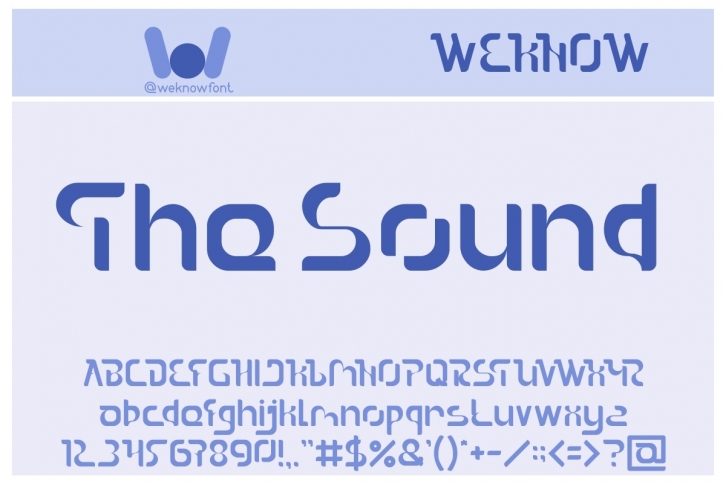
The Sound is a fancy and robotic styled display font. It is suitable for logos, headlines, apparel industry, poster, music, movie, game, magazine, book, comic, cartoon, or various other creative design projects.